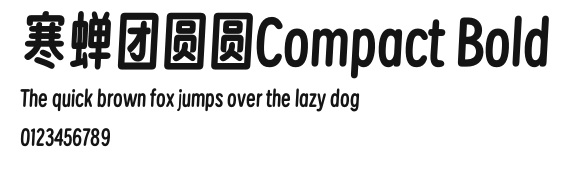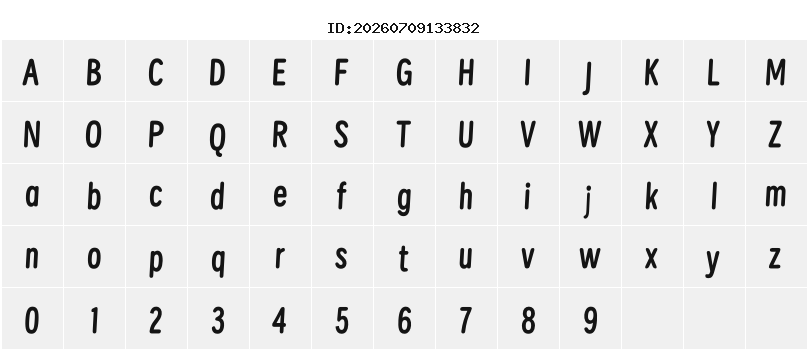
• Font Name: 寒蝉团圆圆Compact Bold
• Designer: 寒蝉字型
About 寒蝉团圆圆Compact Bold.otf
寒蝉团圆圆Compact Bold.otf is a modern, elegant sans-serif font designed for ultimate readability and visual harmony. Perfect for branding, headlines, web design, and print materials.